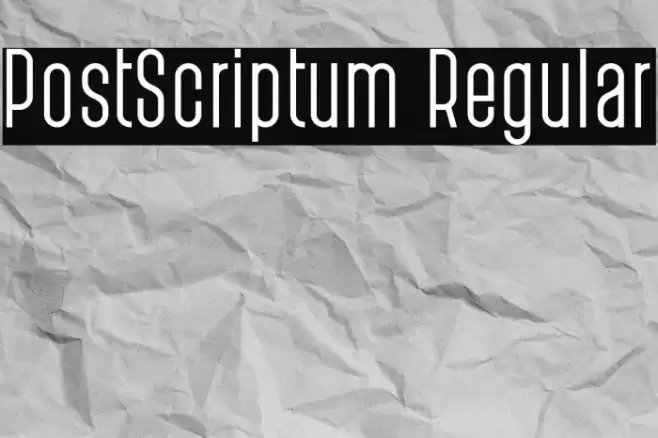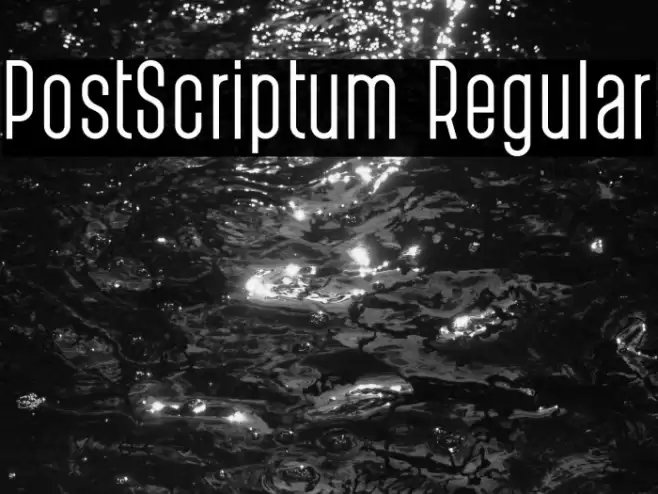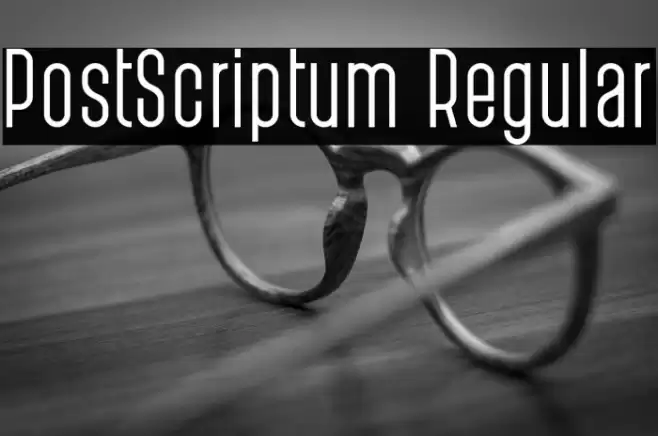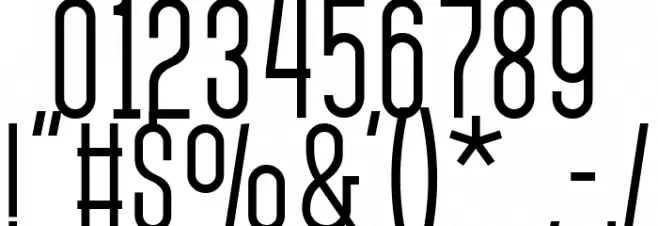
PostScriptum Regular Font
PostScriptum Regular Description
This font features a clean and modern sans-serif style with tall, narrow characters that convey a sense of elegance and sophistication. The uppercase letters are uniform in height, while the lowercase letters maintain a consistent baseline, enhancing readability. The numerals are distinct and easy to distinguish, making them suitable for various applications. Special characters are well-defined, adding versatility to the font's usage. The overall design is sleek and professional, making it ideal for contemporary projects.
A modern, tall, and narrow sans-serif font with a sleek and professional appearance from Regular fonts.
- Proposed Projects: Ideal for branding, editorial design, web design, and advertising materials where a modern and clean look is desired.